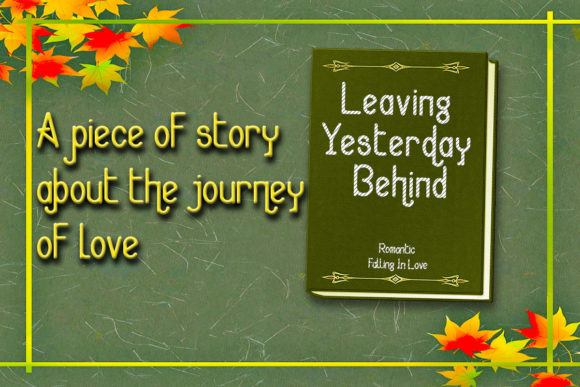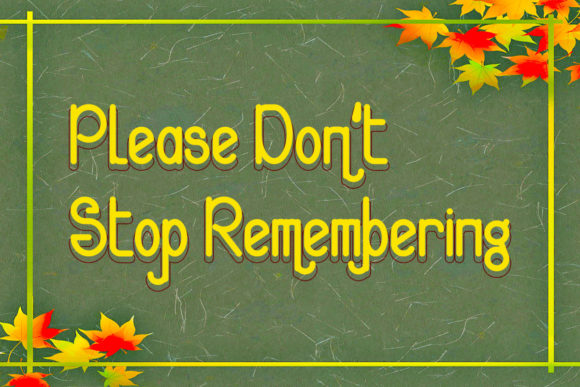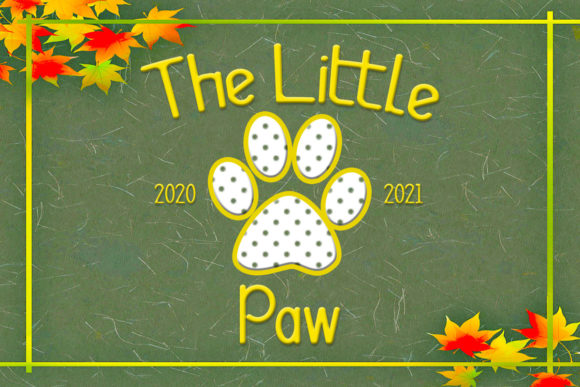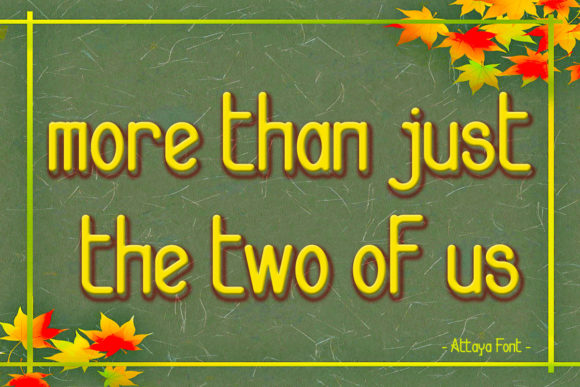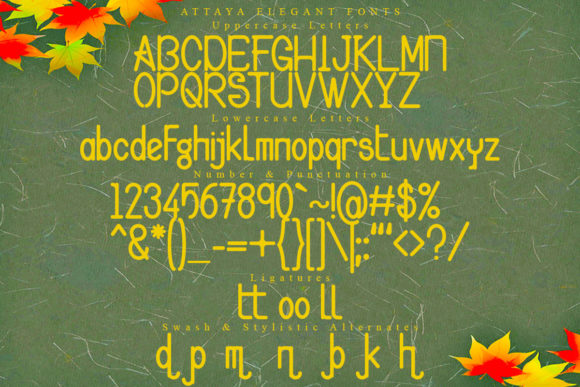
Introducing Attaya Font: The Ultimate Vintage Handwritten Font for Designers
Are you a designer or crafter looking for a font that can elevate your creations to the next level? Look no further than Attaya Font, a cool and vintage styled handwritten font that’s perfect for a wide range of design projects. In this article, we’ll take a closer look at Attaya Font, its features, and how it can benefit your design work.
What is Attaya Font?
Attaya Font is a beautifully crafted handwritten font that’s inspired by the elegance of vintage typography. Its unique and distinctive style makes it perfect for designers who want to add a touch of sophistication and personality to their work. Whether you’re creating a logo, branding materials, or social media graphics, Attaya Font is sure to make your designs stand out.
Key Features of Attaya Font
So, what makes Attaya Font so special? Here are some of its key features:
- Vintage Style: Attaya Font has a distinctly vintage feel that’s reminiscent of classic handwritten typography.
- Handwritten Look: The font has a beautifully crafted handwritten look that’s perfect for creating personalized and unique designs.
- Cool and Modern: Despite its vintage inspiration, Attaya Font has a cool and modern edge that’s perfect for designers who want to create contemporary designs.
- Highly Versatile: Attaya Font can be used for a wide range of design projects, from logos and branding materials to social media graphics and more.
Benefits of Using Attaya Font
So, why should you choose Attaya Font for your design projects? Here are just a few benefits of using this amazing font:
- Elevate Your Designs: Attaya Font has the potential to elevate any creation, adding a touch of sophistication and personality to your designs.
- Stand Out from the Crowd: With its unique and distinctive style, Attaya Font can help your designs stand out from the crowd and grab attention.
- Perfect for Crafters: Attaya Font is also perfect for crafters who want to add a personal touch to their projects, from handmade cards to DIY crafts.
How to Use Attaya Font
Using Attaya Font is easy! Here are a few tips to get you started:
- Pair it with Other Fonts: Attaya Font pairs well with other fonts, so feel free to experiment with different combinations to create unique and interesting designs.
- Experiment with Colors: Attaya Font looks great in a range of colors, from bold and bright to soft and pastel.
- Add Texture and Patterns: Consider adding texture and patterns to your designs to give them an extra layer of interest and depth.
Whether you’re a seasoned designer or a crafter looking for a personal touch, Attaya Font is the perfect choice. Its cool and modern edge, combined with its vintage inspiration, makes it a font that’s sure to impress. So go ahead, get creative, and see what amazing designs you can create with Attaya Font!